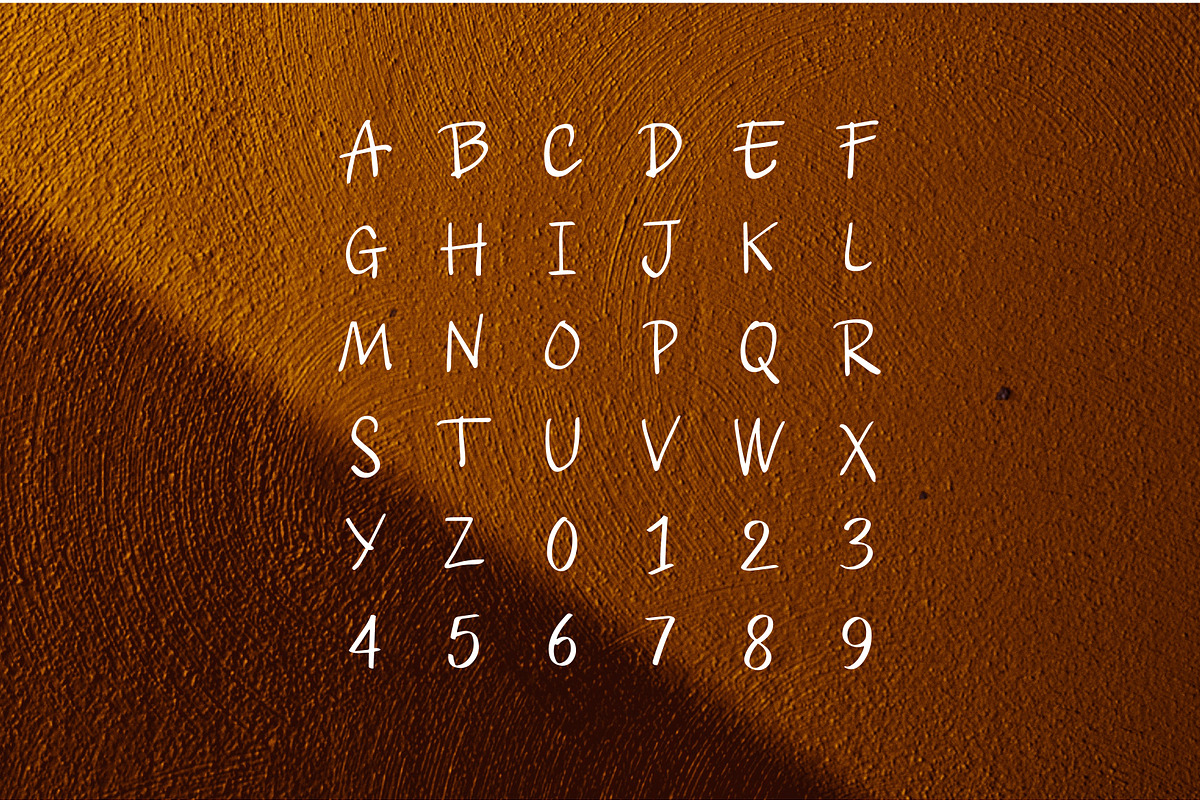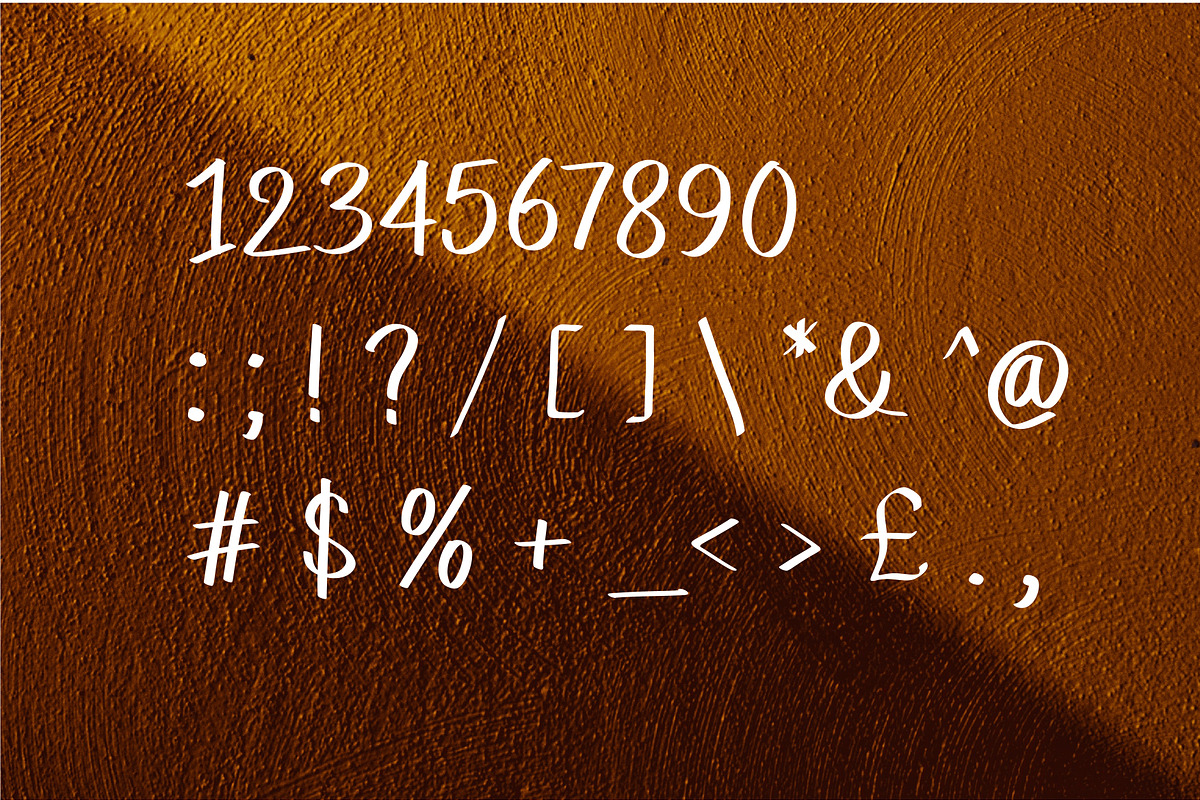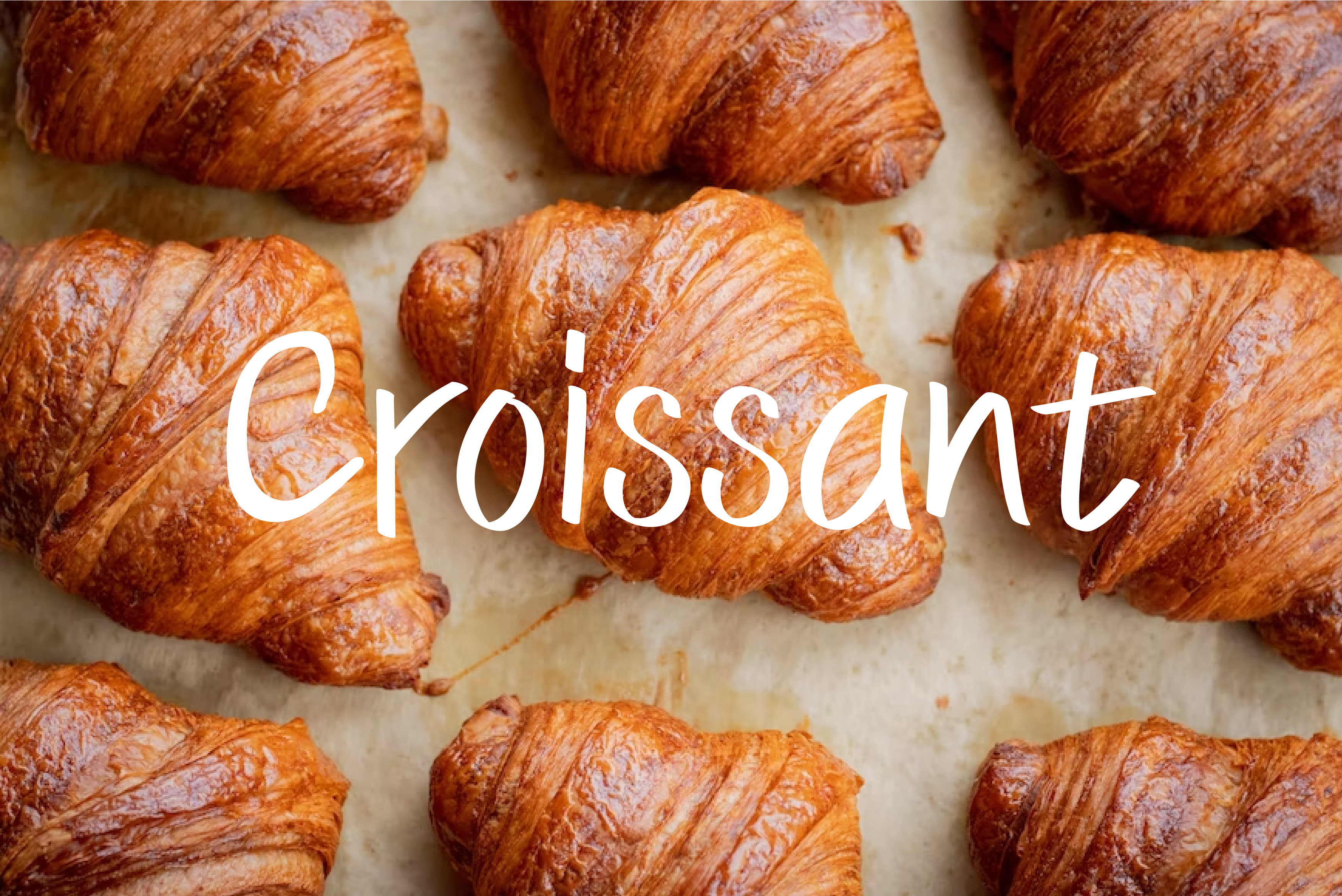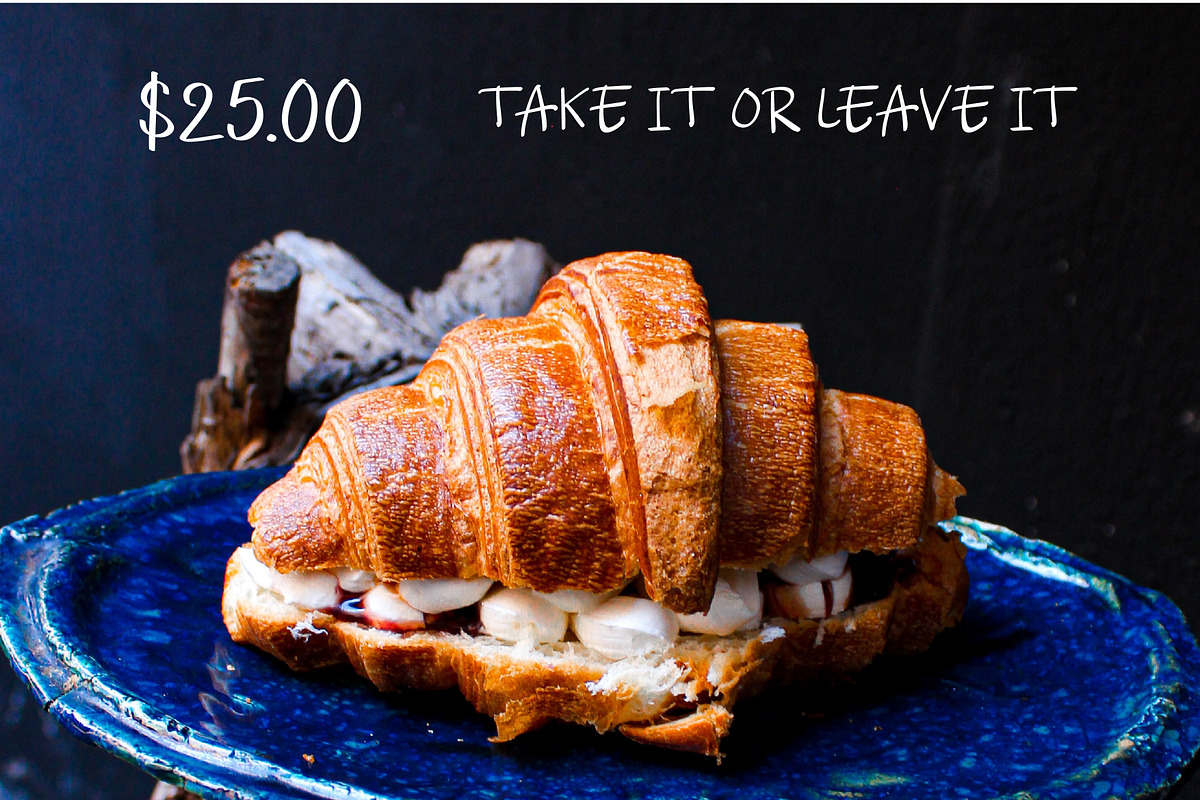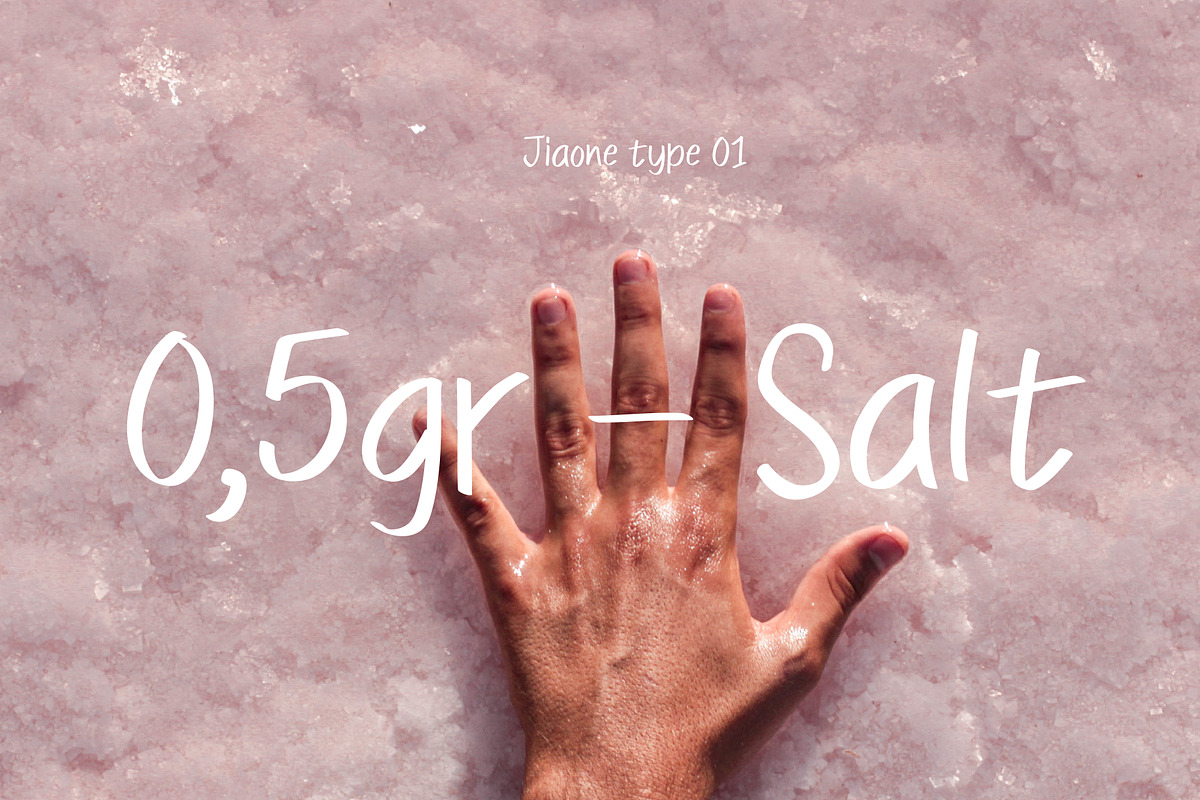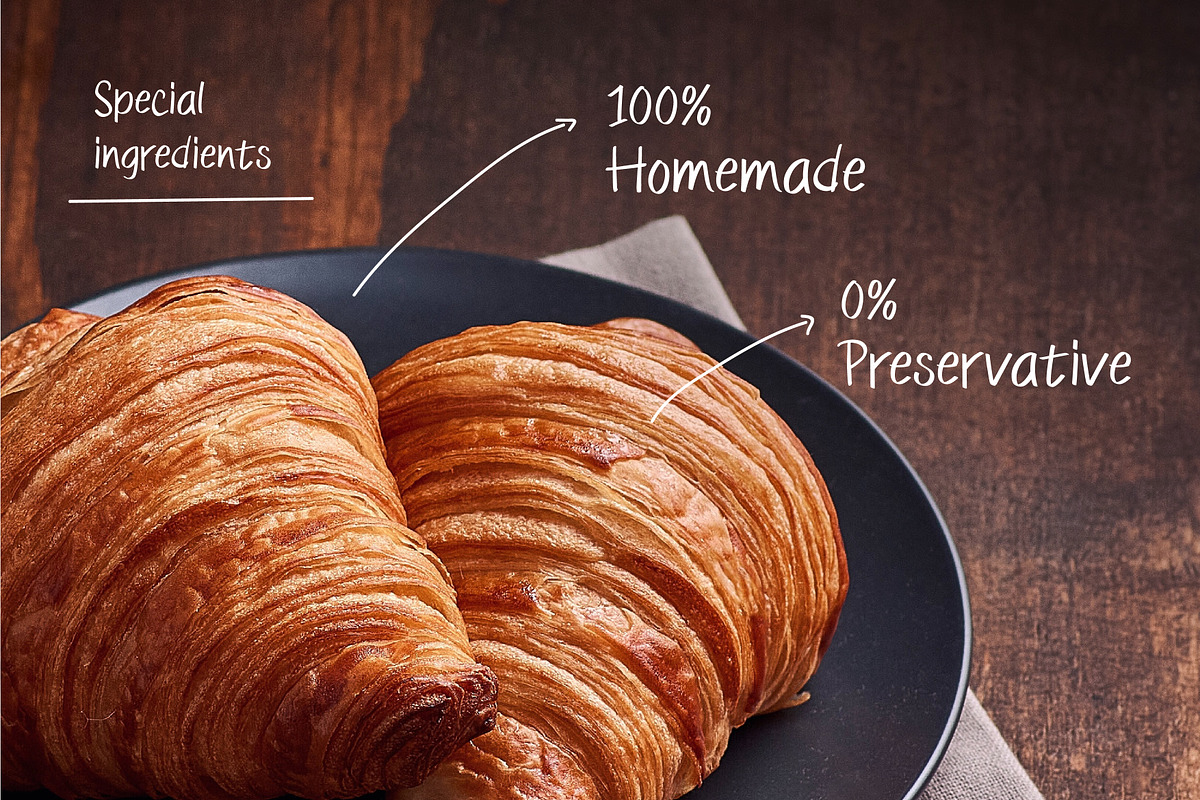
Croissant Font / Jia / Handwritting
Croissant font is a handwriting font that is suitable for food or snack descriptions that have a relaxed, professional and passionate impression. This font was designed by akroma studio designer jiaone. This font forms using handwriting with emotion and love towards delicious food. Hopefully, this font can be used well and help you in representing something.
This font comes with upper and lower case letters, as well as punctuation, money accents like dollars etc.